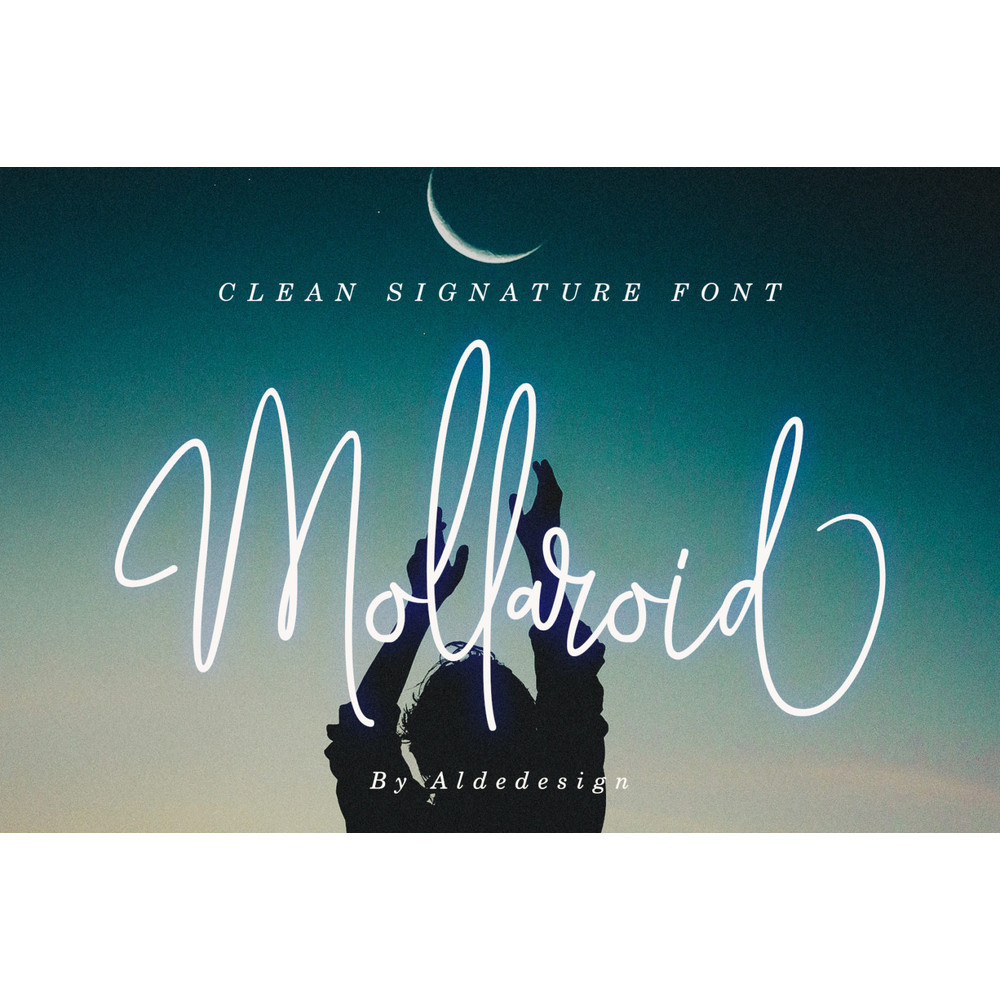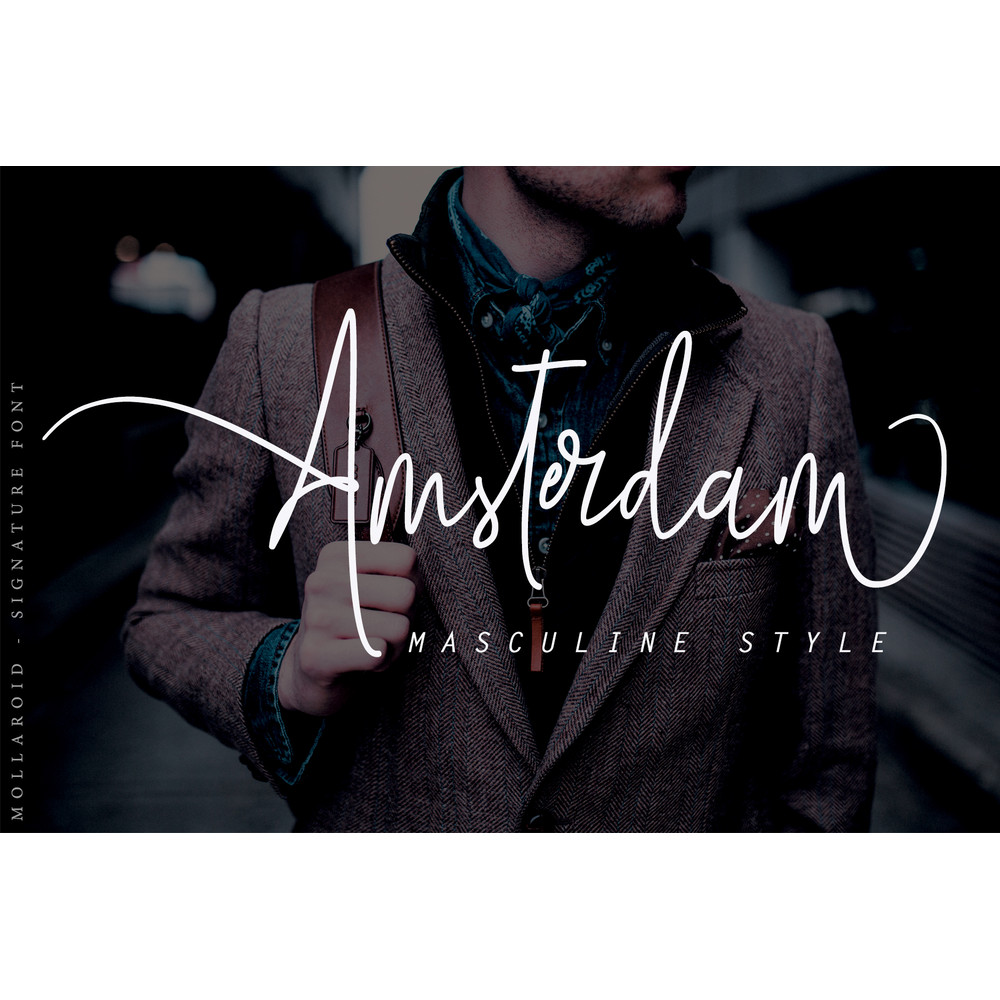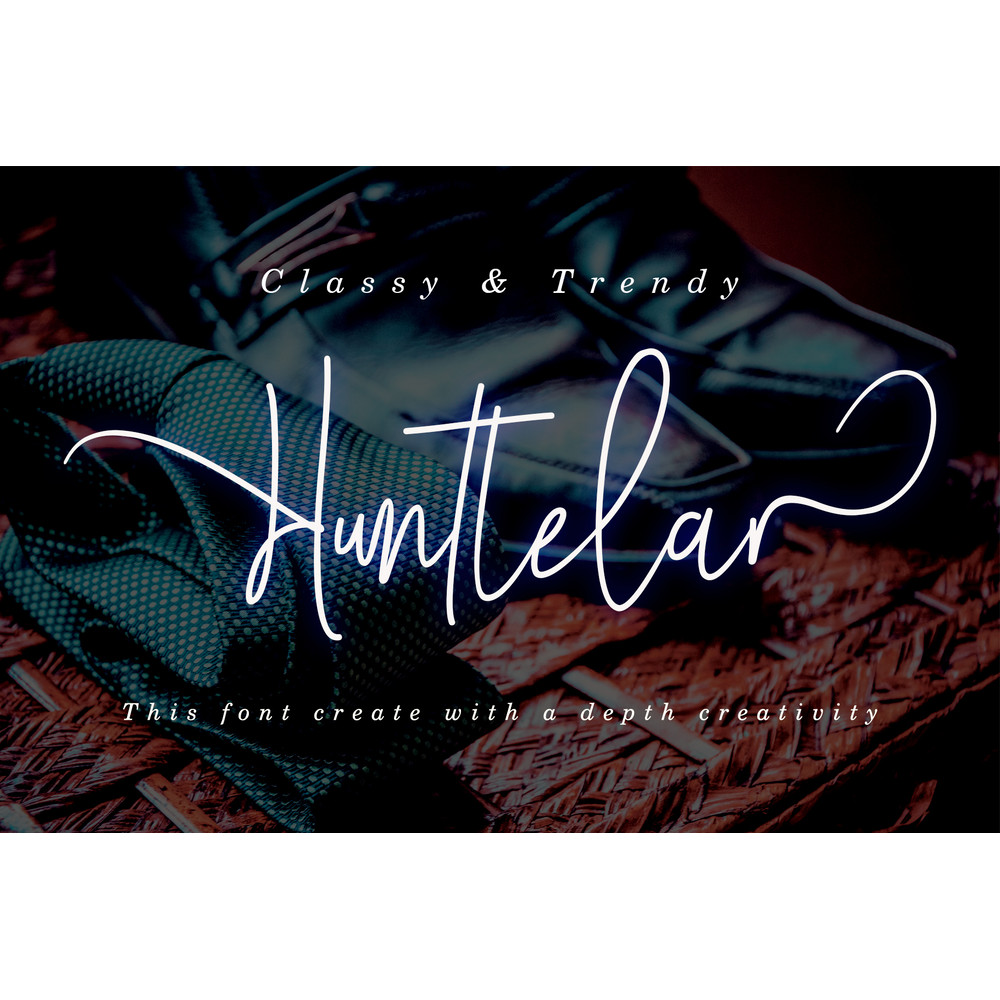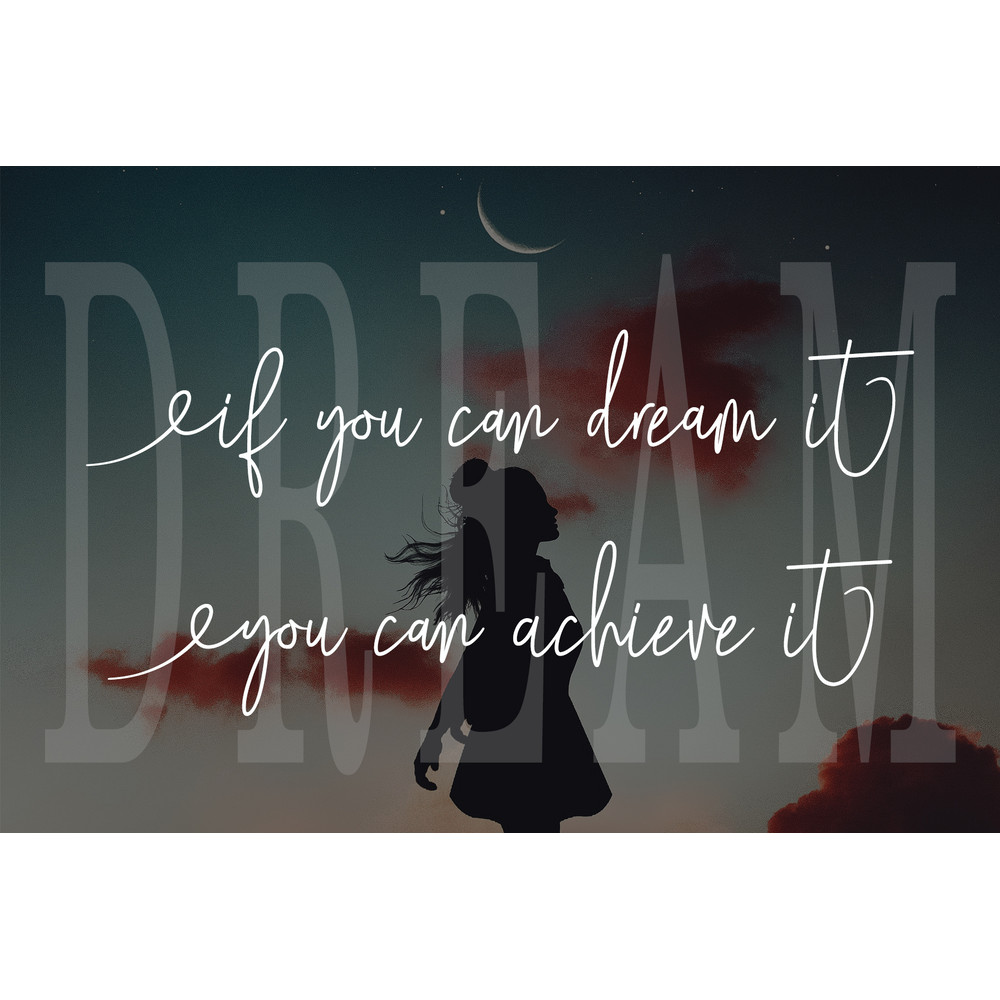
Mollaroid // Signature Font Trending Fonts - Digital Font
Mollaroid is a clean, yet authentic handwritten font with a light feel. It will add a charming touch to any design project!